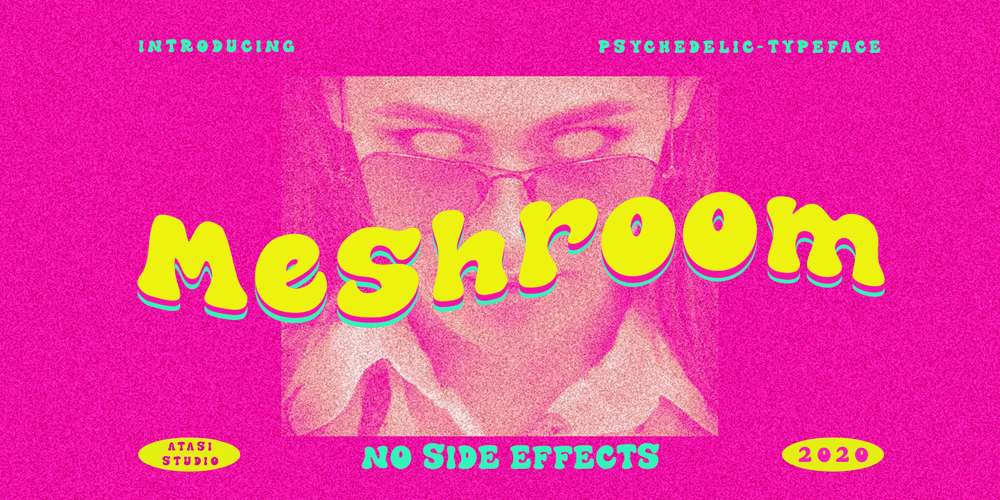
The Meshroom Font Family was designed by Rizka Prayuda and published by Atasi Studio. The Meshroom contains 1 styles and family package options. The Meshroom is a display groovy font with a psychedelic look and trippy effect. The Meshroom is ready and perfectly fit for your logo designs, music projects & social media posts, event posters, branding imagery, product packaging, handwritten quotes, merchandise, and more. Please don’t hesitate to send me a message if you have any issues or queries.